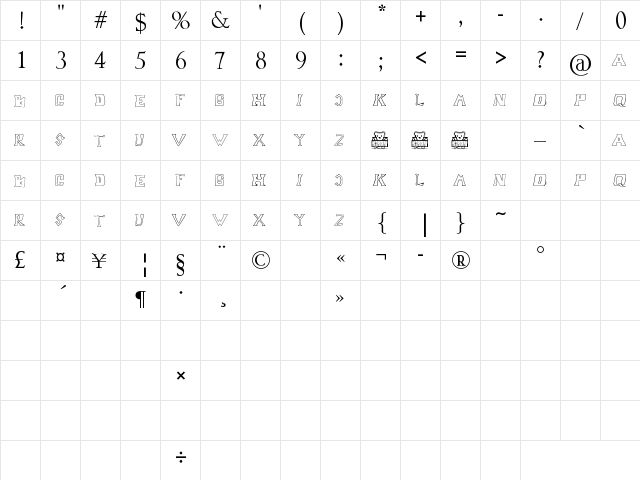
Ripai Graffiti Regular
| Designer | Mr NastZz |
Design Context for Ripai Graffiti Typeface
Ripai Graffiti is a composed and adaptable typeface that performs quietly and consistently across a wide range of design contexts.